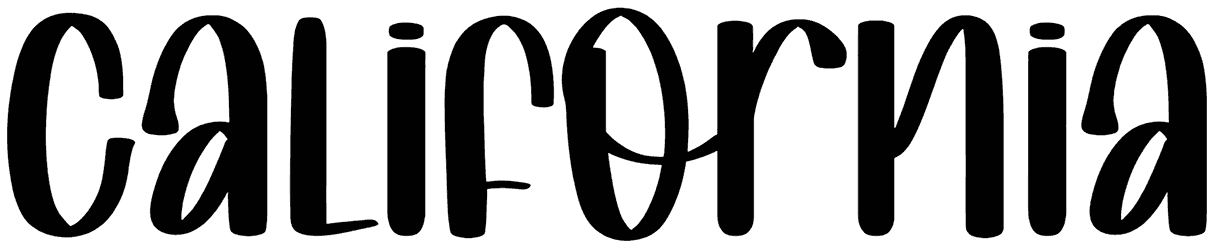
California Font
We would like to invite you to leave your comfort zone and pick up a lovely handwritten font, such as California, to boost the visibility of your visual content, including street posters, digital banners, illustrations, logos, or stickers.